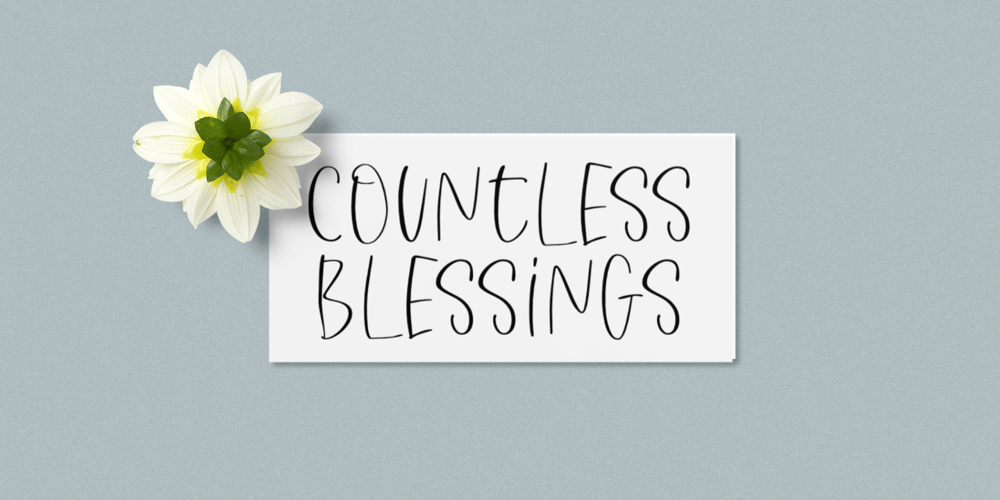
Countless Blessings
Countless Blessings font
Countless Blessings Font Family was designed by Aldy Sidik and published by Epiclinez. Countless Blessings contains 1 styles and family package options. Countless Blessings is a fun and casual handwritten font. Defined by all-round characters and a flexible style, this font will make each of your designs look readable and trend